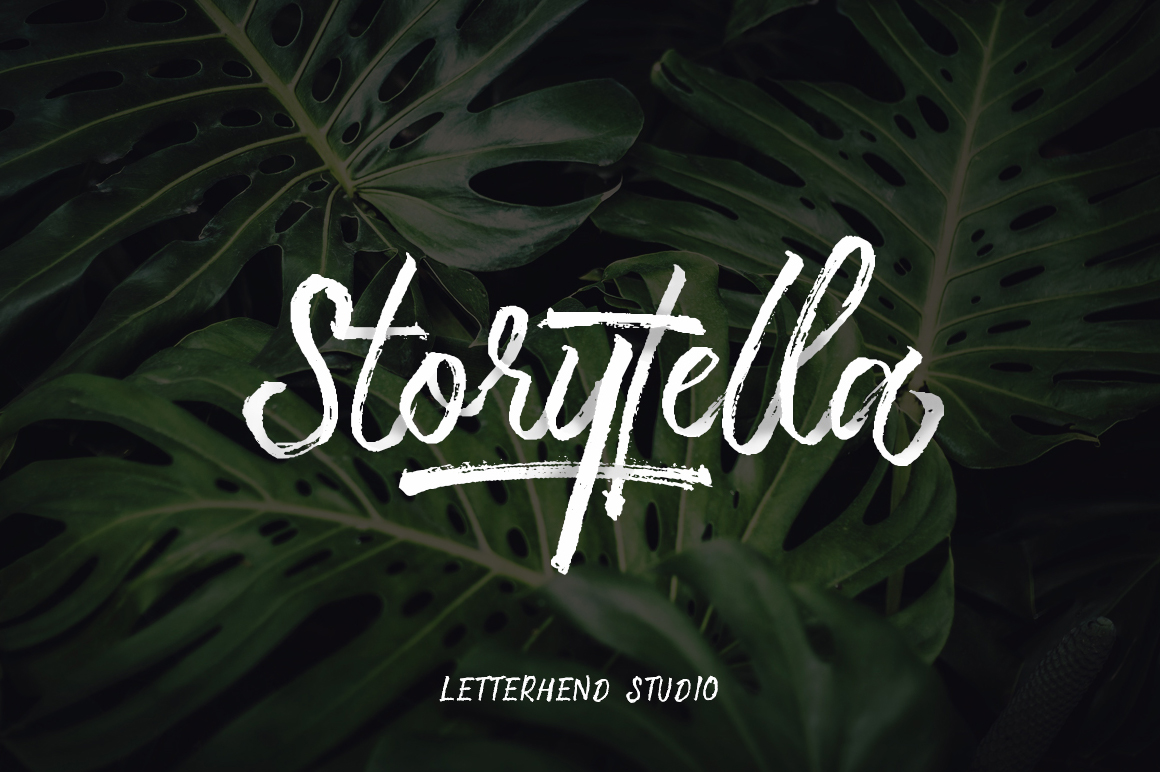
Storytella — Free Handwritten Brush Font
Storytella is a free, hand-drawn brush font with expressive swashes and plenty of alternate characters. It’s a versatile typeface well suited for logos, packaging, social media graphics and other creative projects. Big thanks to Letterhend Studio for generously sharing this typeface.
- Includes: numbers, symbols, special characters, uppercase & lowercase letters, alternate characters and swashes